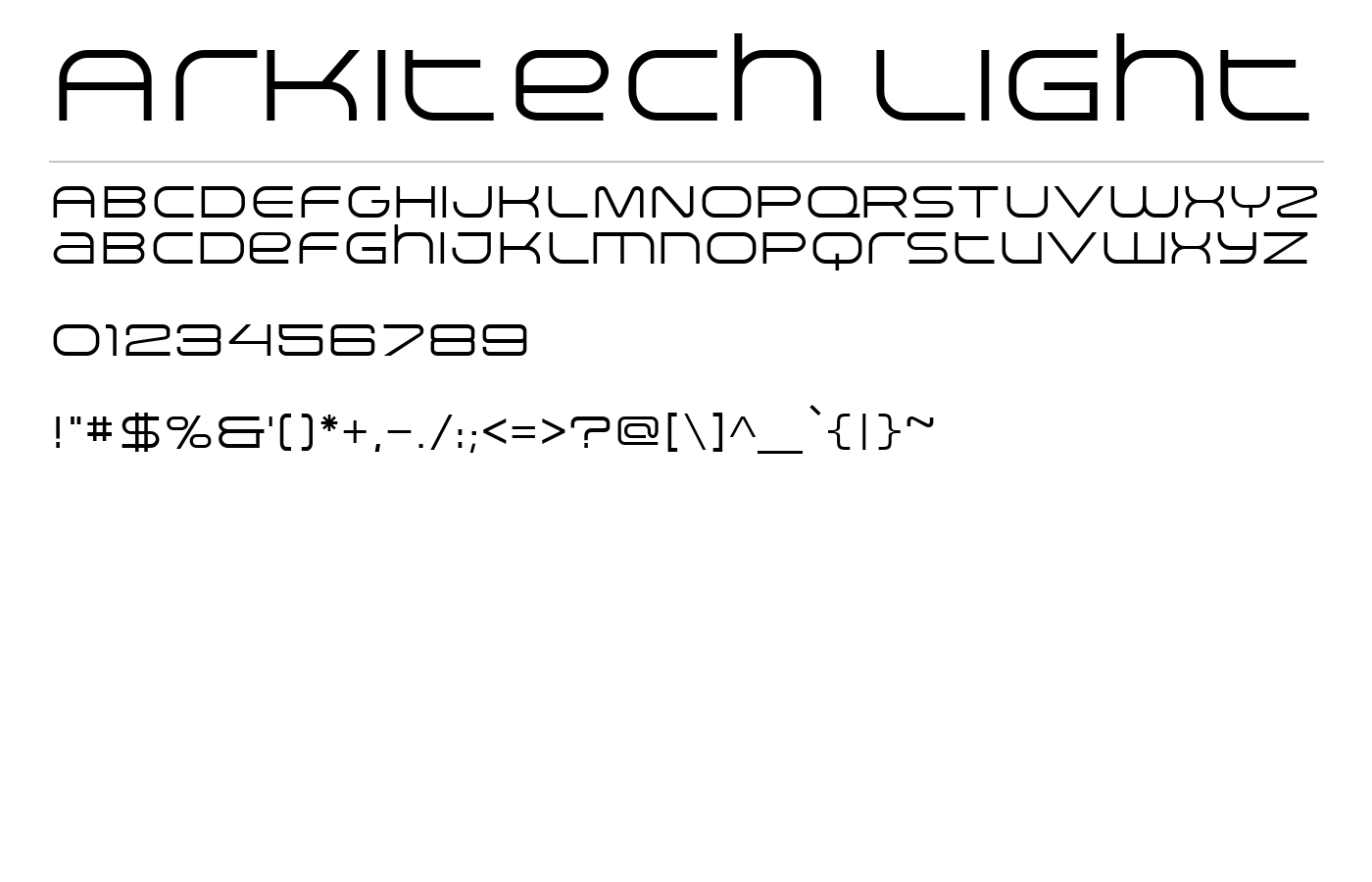
Arkitech Light is a sleek, modern sans serif font with a futuristic, geometric feel. Its clean, light strokes and distinctive letterforms make it perfect for tech-oriented branding, headlines, and digital media where a contemporary and innovative look is desired. This font stands out with its unique shapes and balanced spacing, offering clarity and style in minimalist design contexts.
Arkitech Font
About Arkitech Font
| Font family | Arkitech Font |
| Languages supported | Latin, Cyrillic, Symbols, Greek |
| Designer | Ivan Filipov |